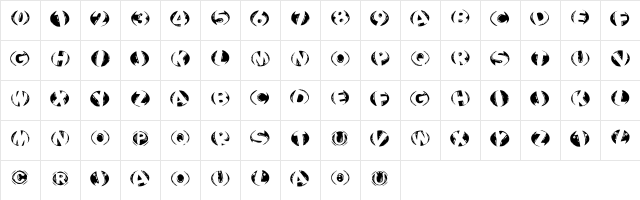
WoodcuttedCapsInversFS echoes the hand-painted signage and woodblock typography of the American frontier, with a warm, rugged personality.
Font Pairing: Combine WoodcuttedCapsInversFS with a simple slab or neutral sans - period-accurate companions reinforce the vintage feel without competing for attention.
Pro Tip: Use WoodcuttedCapsInversFS for short, impactful bursts of text - it shines in poster headlines and product names rather than extended copy.